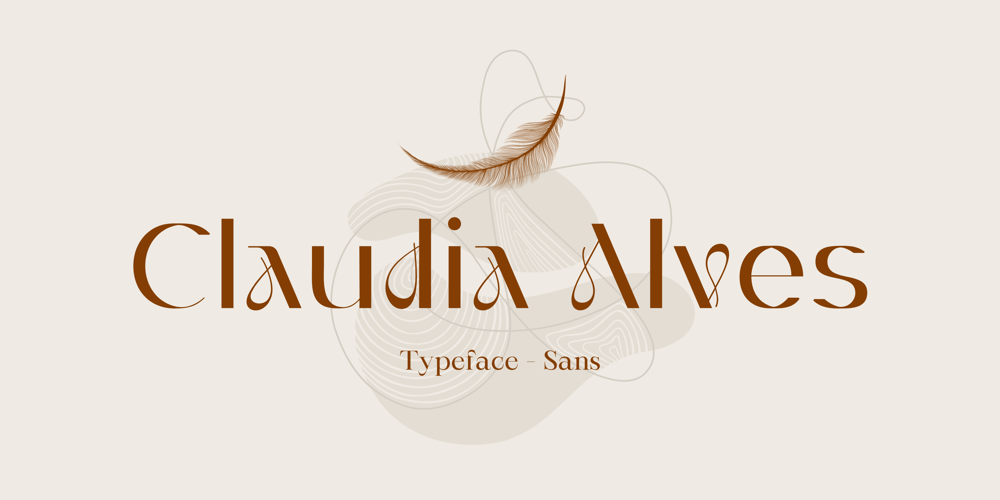
Claudia Alves
Claudia Alves font
Claudia Alves Font Family was designed by Yusup Saputra and published by DYSA Studio. Claudia Alves contains 1 styles and family package options. Claudia Alves is a New Modern Serif Typeface. This another collection of Serif is perfect for your next branding project, excellent for your business. Claudia Alves have a smooth edges, so this font gives an authentic handcrafted feel style.